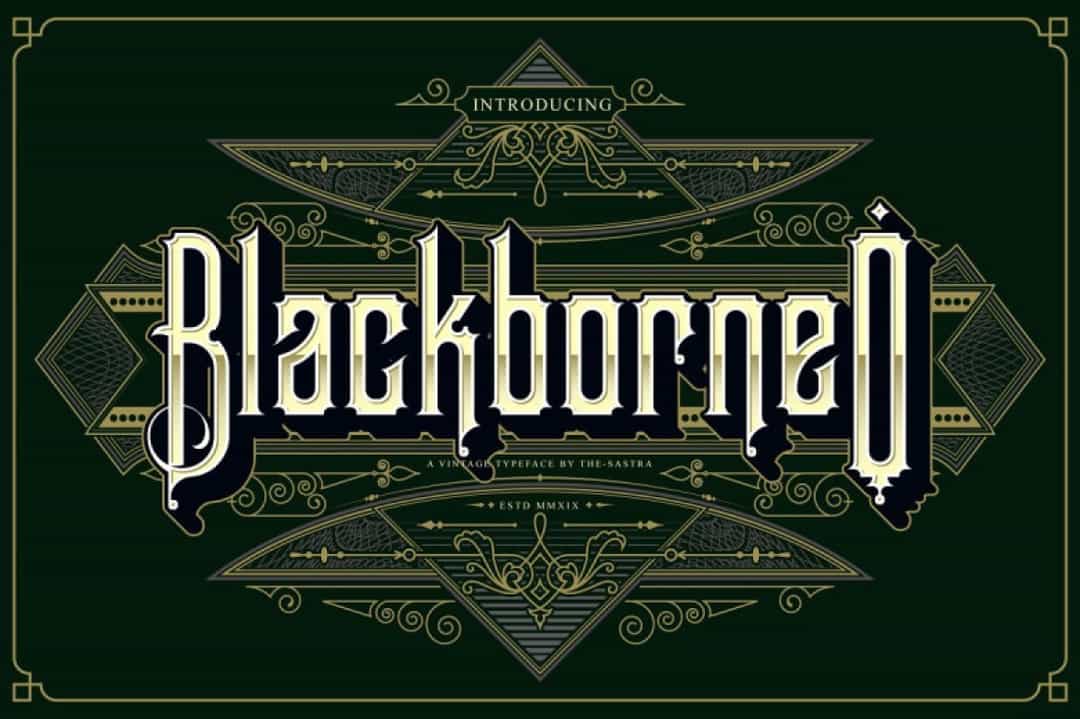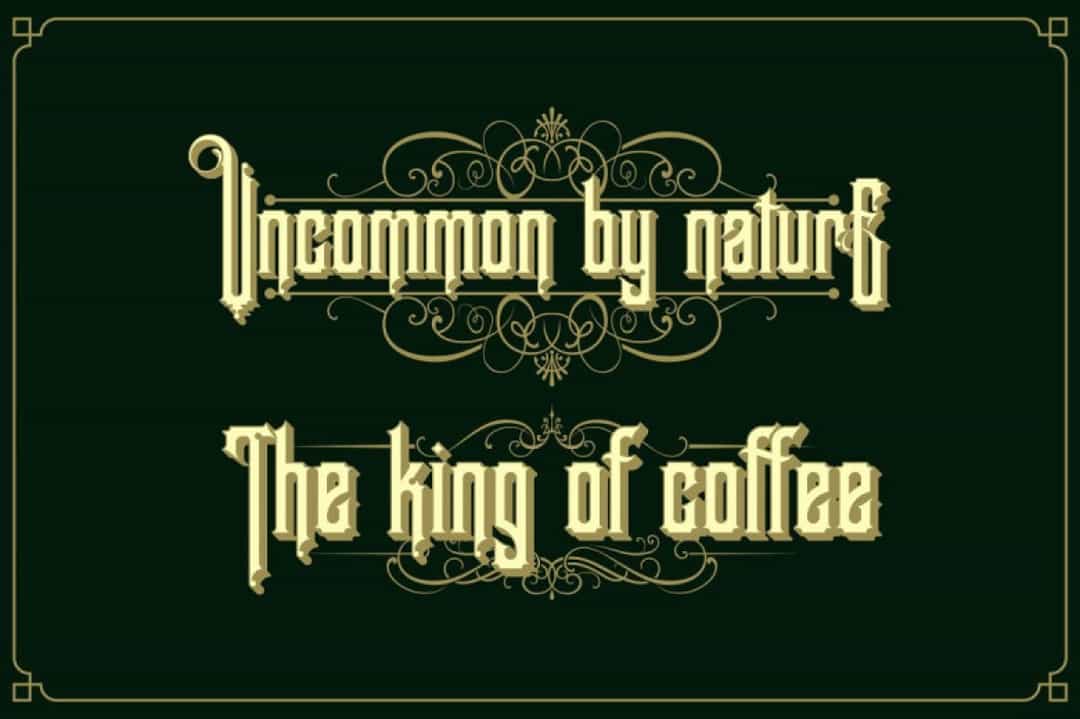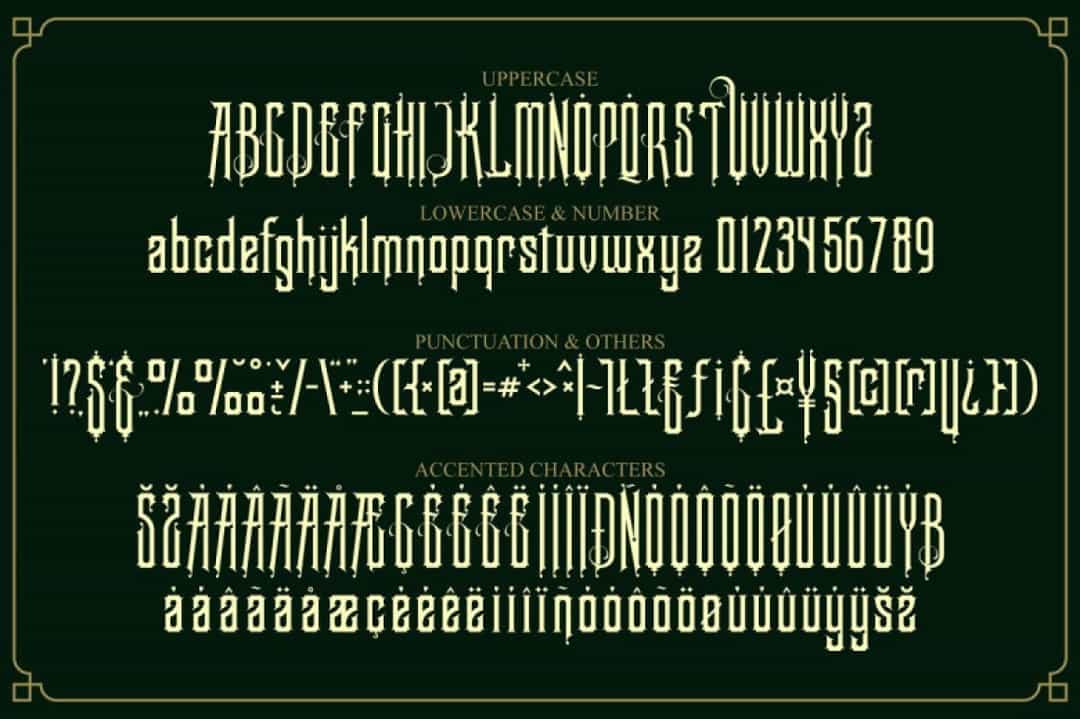
BlackBorneo can be described as an impressive and striking font which boasts the elegance and distinctive characteristics of blackletter typeface. Modernized to offer its classic feel in modernized form, this font can easily fit into any design project with ease.